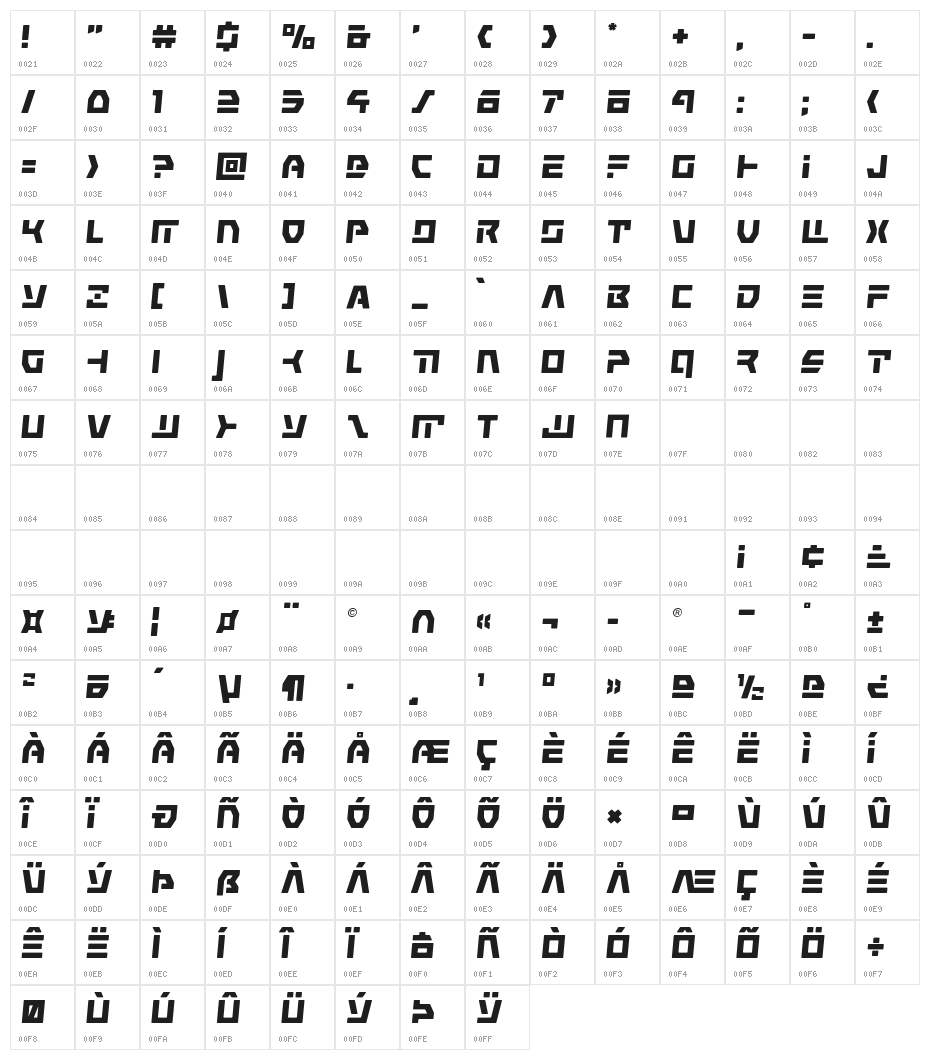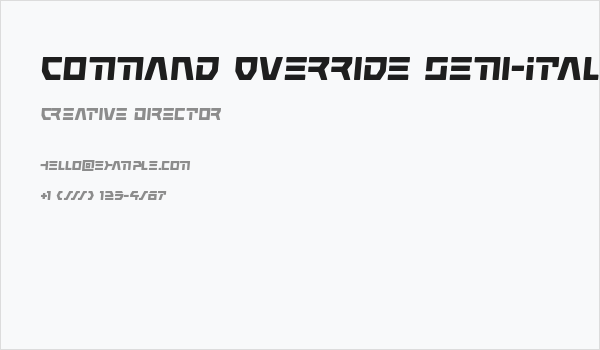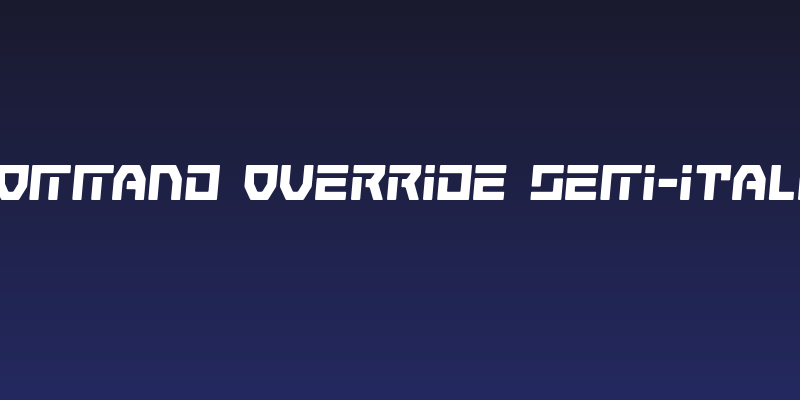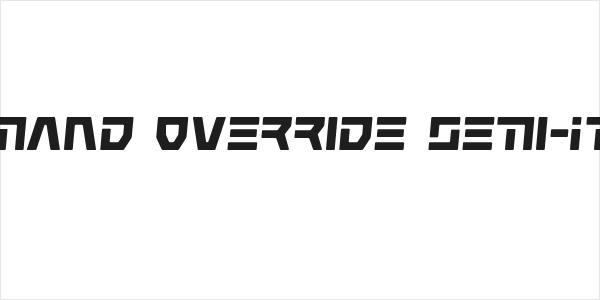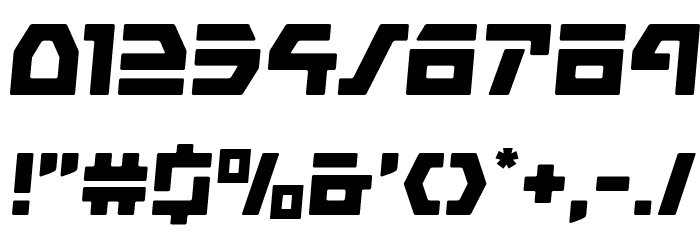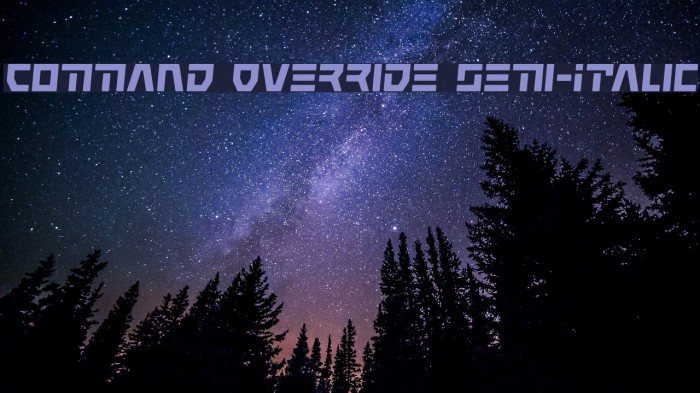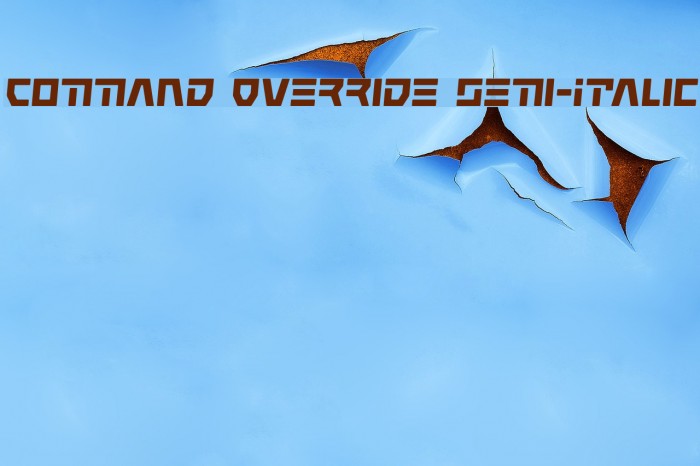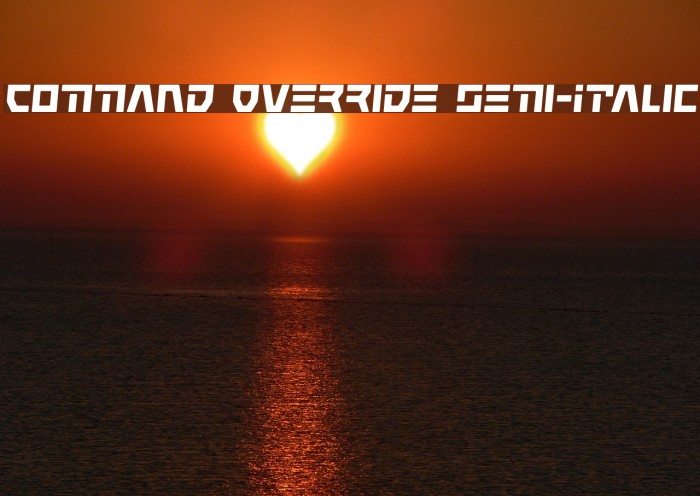
Command Override Semi-Italic Font
Command Override Semi-Italic Description
This font features a bold, futuristic design with angular, geometric shapes. The characters are constructed with sharp edges and a distinct slant, giving it a semi-italic appearance. The uppercase and lowercase letters maintain a consistent style, with a unique, almost stencil-like quality. The numbers and special characters follow the same design principles, ensuring uniformity across the typeface. The font's boldness and distinctive style make it stand out, suitable for attention-grabbing designs.
| Proposed Projects | Ideal for sci-fi themed projects, video game titles, tech branding, and futuristic posters. |